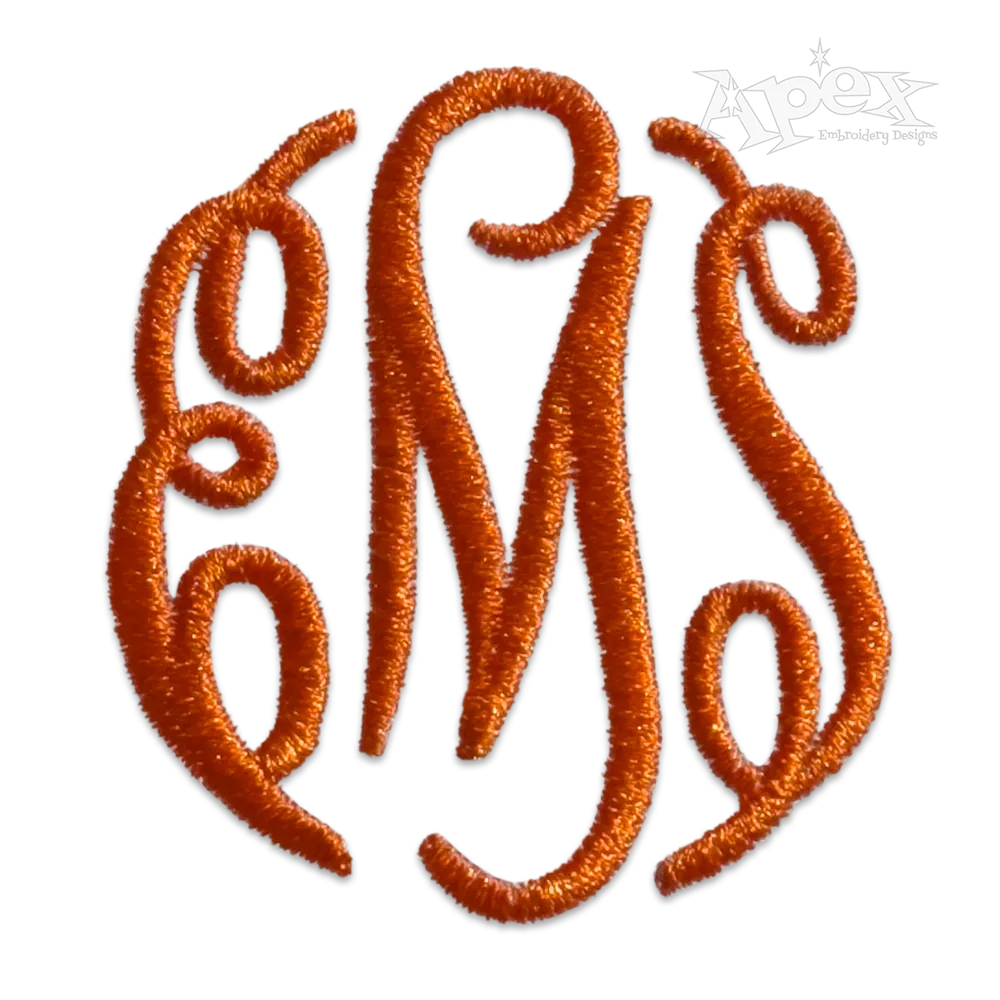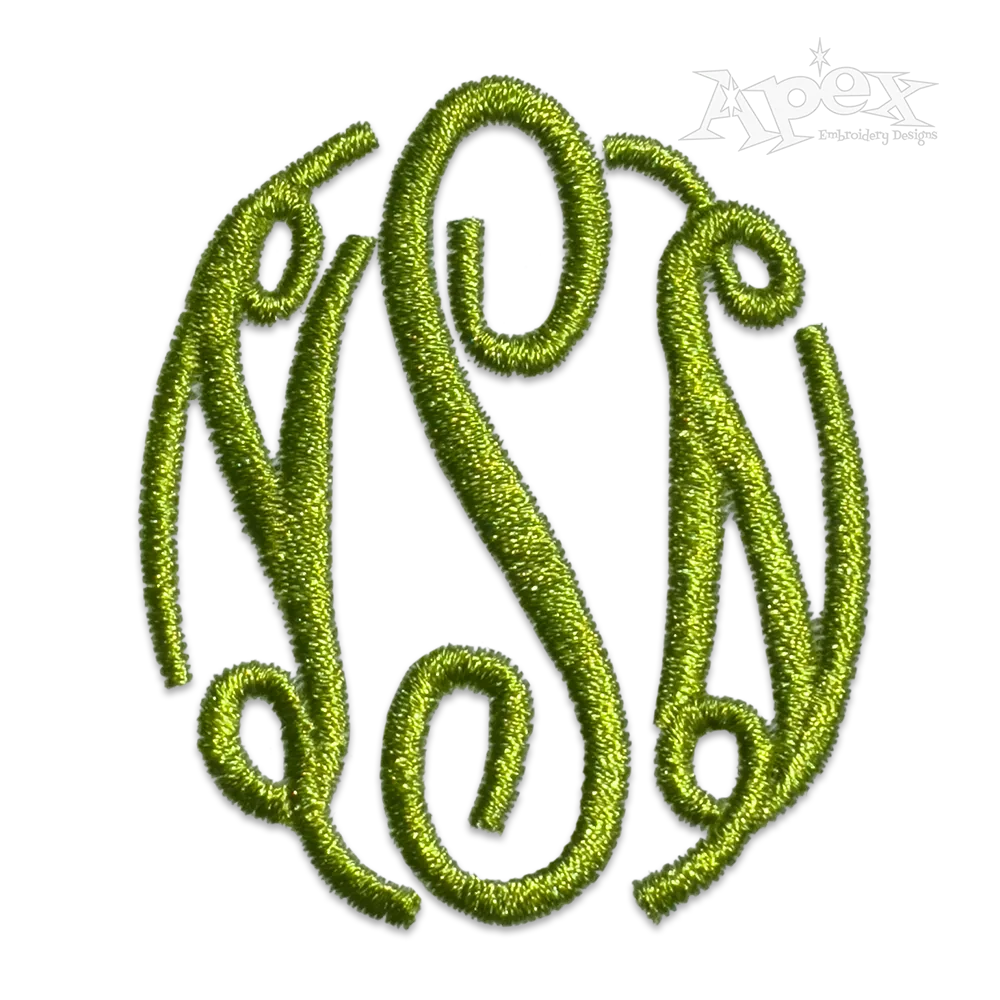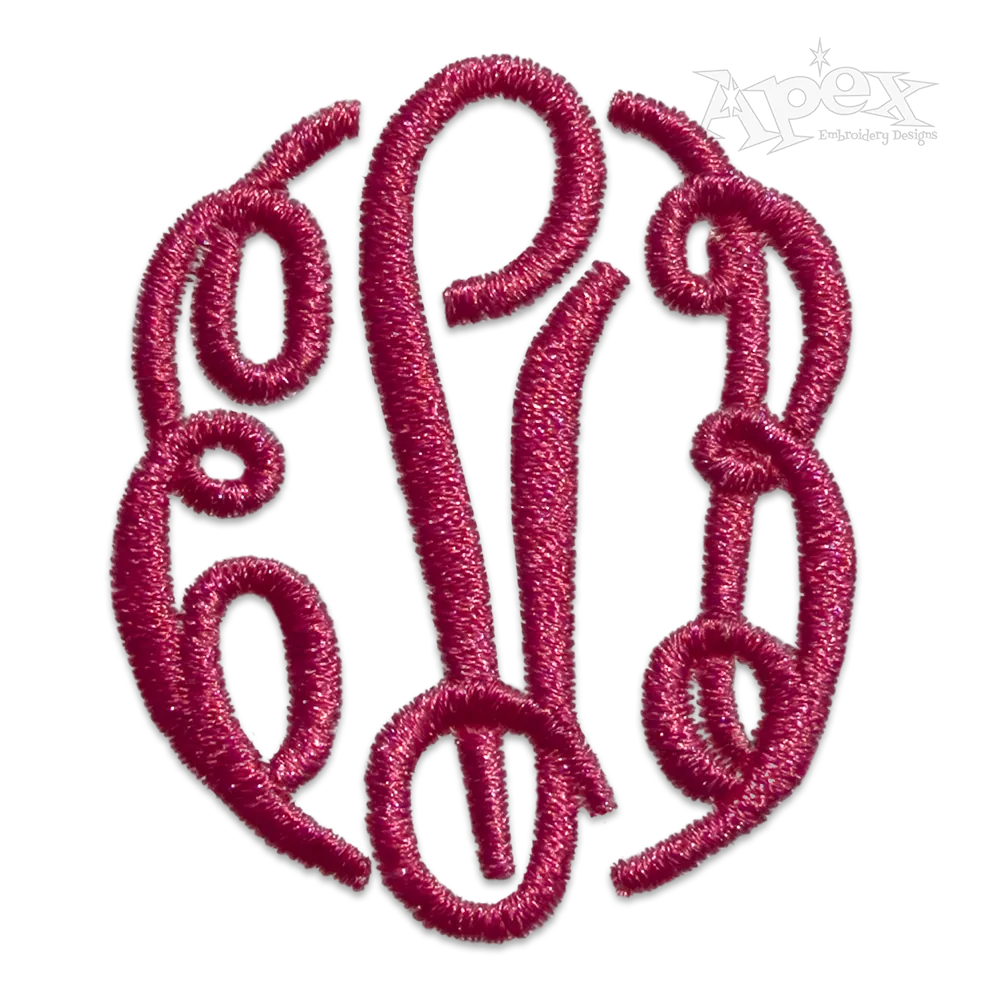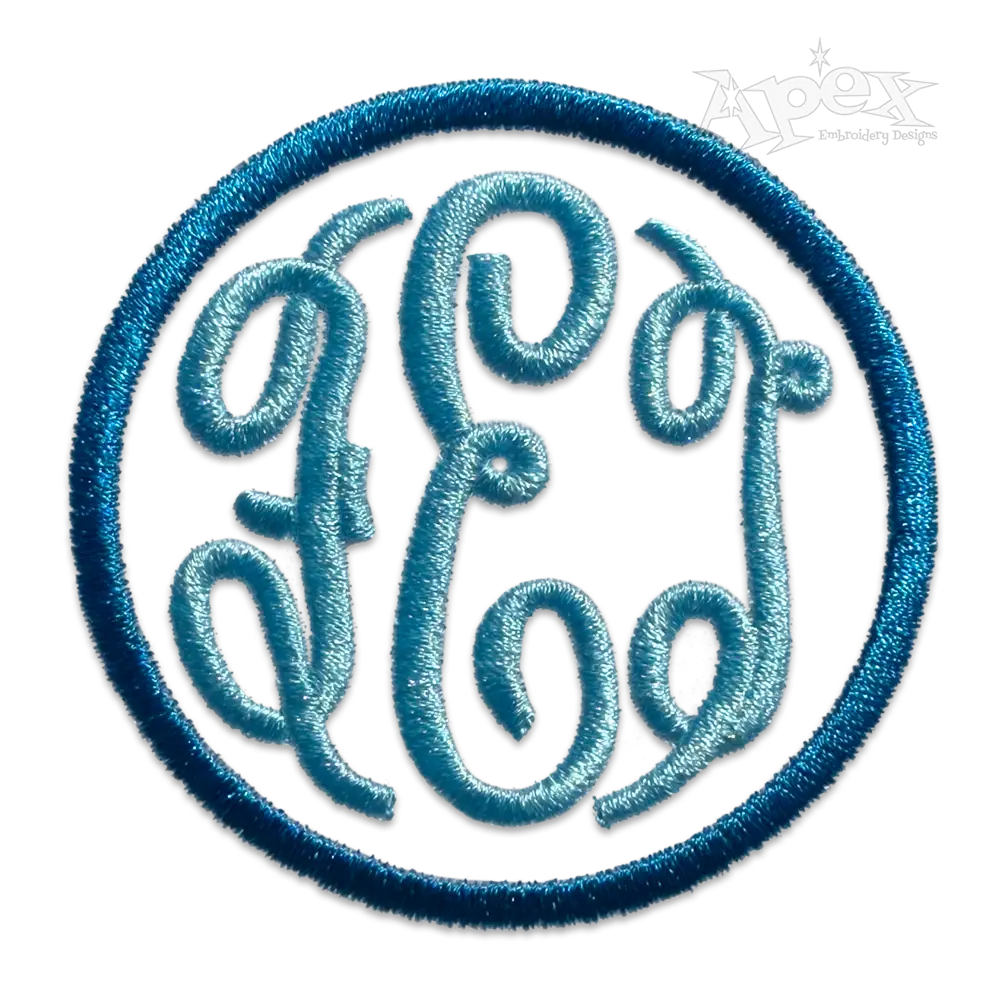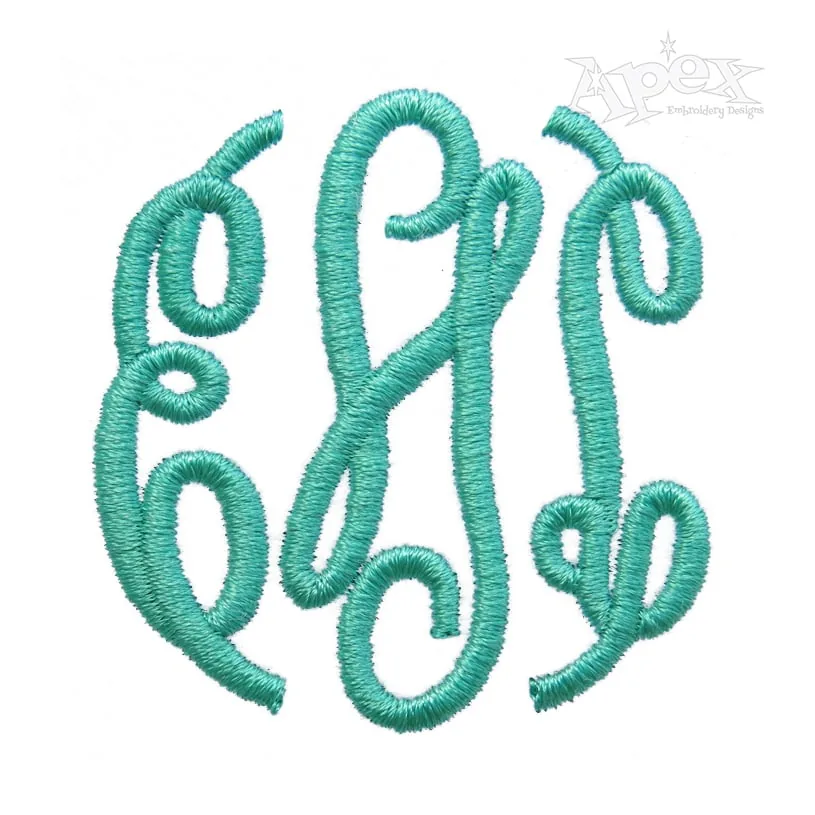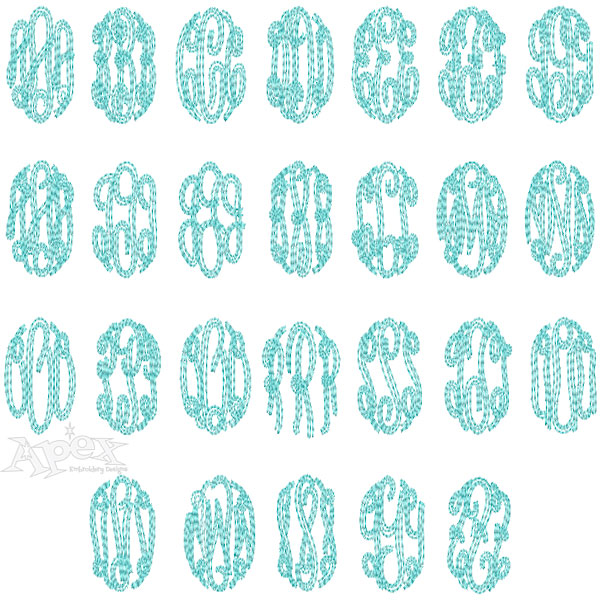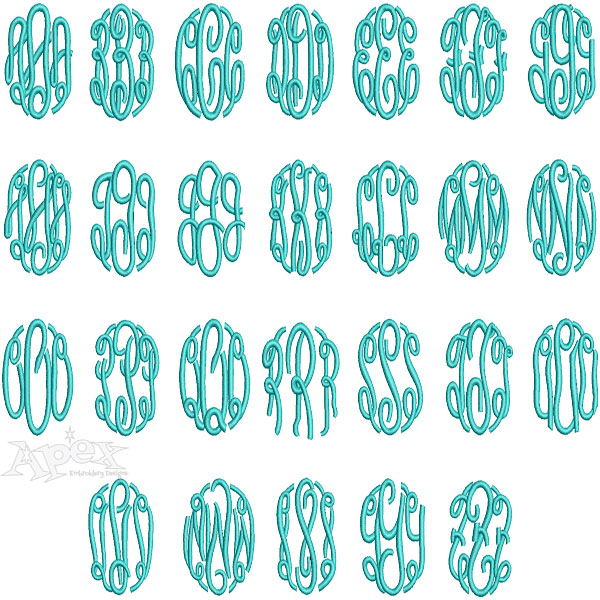
Apex Round Monogram Small Embroidery Font
There is a quiet, enduring majesty in the symmetry of a circular monogram. Inspired by vintage engraved wax seals and the refined heirloom linens of coastal family estates, the Apex Round Monogram Small was drawn to bring timeless proportion to smaller embroidery fields. In petite scales, the margin between crisp legibility and heavy thread build-up is razor-thin. We digitized this collection to master that delicate balance, blending architectural curves with clean stitch paths so your personalized projects emerge with effortless, tailored elegance.
This typography collection features four purposefully digitized sizes, transitioning seamlessly from delicate micro-runs to lustrous satin columns. By calibrating the stitch mechanics specifically to each scale, fine details stay sharp without distorting the fabric.
- 0.75-inch (Bean Stitch): Ultra-precise run stitching engineered for crisp, featherweight micro-lettering.
- 1.00-inch (Bean Stitch): A subtly bolder run-stitch monogram that holds exceptional clarity on lightweight knits and fine weaves.
- 1.50-inch (Satin Stitch): Smooth, sculpted satin columns offering beautiful thread sheen and clean contours.
- 2.00-inch (Satin Stitch): A full, luxurious satin finish ideal as a centerpiece on accessories and personalized gifts.
Project Ideas for Apex Round Monogram Small
Because this font collection is formatted in both clean bean stitching and dimensional satin, its versatility spans casual daily accents to opulent, once-in-a-lifetime heirlooms:
- Luxury Table Linens: Stitch matching three-letter monograms onto fine hemstitched dinner napkins and linen cocktail coasters.
- Bespoke Menswear & Tailoring: Embellish dress shirt cuffs, pocket corners, or inside jacket linings with the understated 0.75-inch or 1-inch bean stitch.
- Bridal & Honeymoon Keepsakes: Accent silk bridal robes, delicate handkerchiefs, and satin cosmetic clutches with the bride's new initials.
- Heirloom Nursery Textiles: Grace baptismal gowns, pima cotton baby rompers, and heirloom receiving blankets with a soft, circular crest.
- Personalized Travel Gear: Elevate canvas tote bags, luggage tags, and spa wraps for thoughtful bridal party or holiday gifting.
The self-contained circular contour of this monogram gives it incredible visual stability across a wide variety of project placements:
- Corner Diagonal: For dinner napkins and linen handkerchiefs, orient the design at a 45-degree angle, set 1.5 to 2 inches from the hemmed corner point.
- Left Chest & Placket: Align the 1.5-inch or 2-inch satin size centered over the left chest on resort wear polo shirts, fleece pullovers, and flannel pajamas.
- Cuff & Sleeve Band: Use the 0.75-inch bean stitch centered on the outside wrist cuff of dress shirts, positioned roughly 1 inch from the buttonhole edge.
- Center Front Pocket Accent: Center the monogram horizontally on apron bibs, pocket fronts, or unstructured canvas accessories for clean, balanced impact.
Apex Round Monogram Small Craft & Letterform Details
Digitizing miniature lettering requires a deep respect for thread dynamics. Traditional wide satin stitches can quickly choke smaller letterforms, causing fabric puckering and unreadable loops. To honor the design's refined proportions, we selected a nimble bean stitch for the 0.75-inch and 1-inch sizes. The multiple-pass running stitch sketches each letterform with crisp precision, preserving every curve and negative space even on lightweight handkerchiefs.
For the 1.5-inch and 2-inch versions, we stepped up to rich, radiant satin stitches. Each flank letter gracefully bends to complete the exterior silhouette of the circle, while the dominant center character provides vertical grounding. Underneath the gleaming surface, meticulously programmed underlay stitching anchors the weave and compensates for natural fabric pull, ensuring the finished circle stitches out perfectly round every single time.